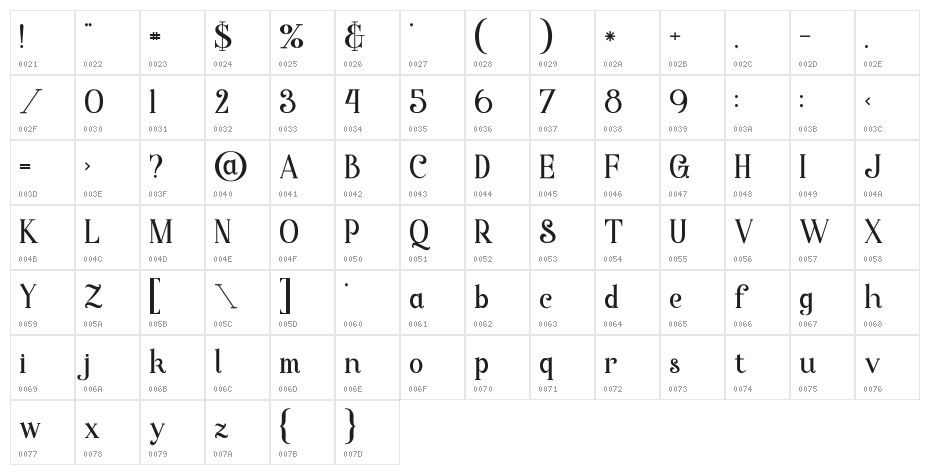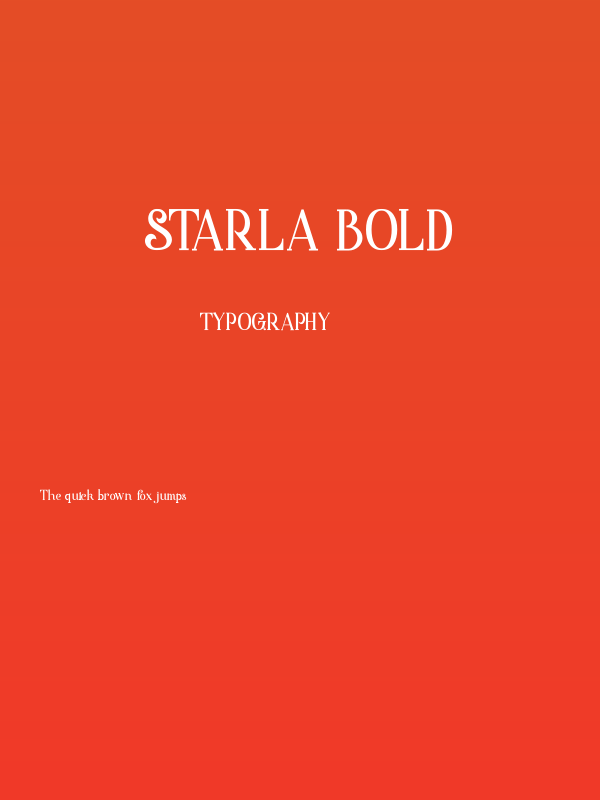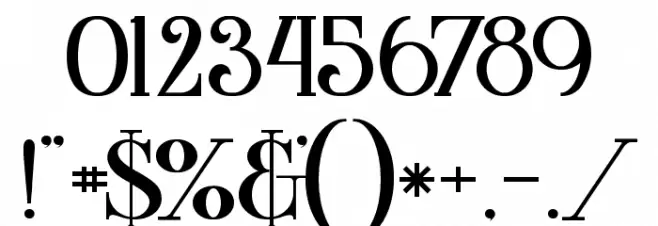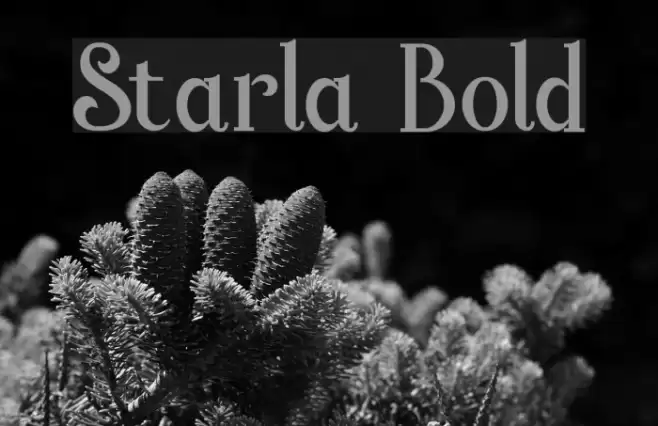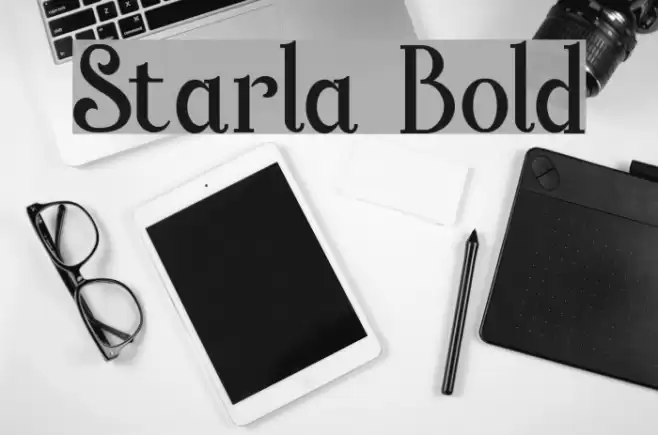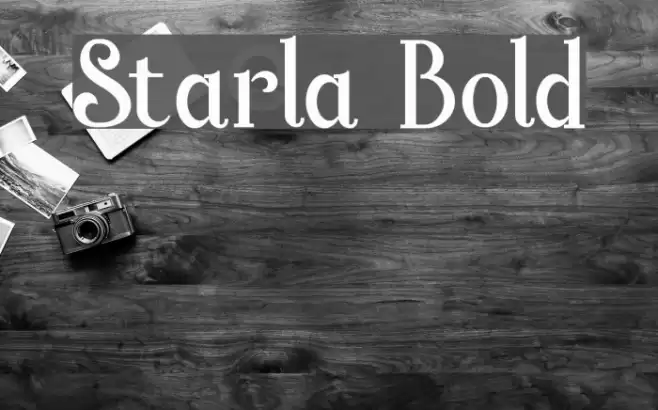
Starla Bold Font
Starla Bold Description
This font features a bold and decorative style with high contrast between thick and thin strokes. The uppercase letters are elegantly designed with subtle serifs and unique flourishes, giving them a sophisticated appearance. The lowercase letters maintain a consistent style, with some characters like 'g' and 'y' having distinctive loops and tails. The numerals are bold and clear, making them easily readable. Special characters are creatively styled, adding to the font's decorative appeal. Overall, this font exudes a classic yet modern vibe, suitable for various design applications.
| Use Case | Headlines, Logos, Invitations |
| Proposed Projects | Ideal for branding, headlines, posters, and invitations where a touch of elegance is desired. |